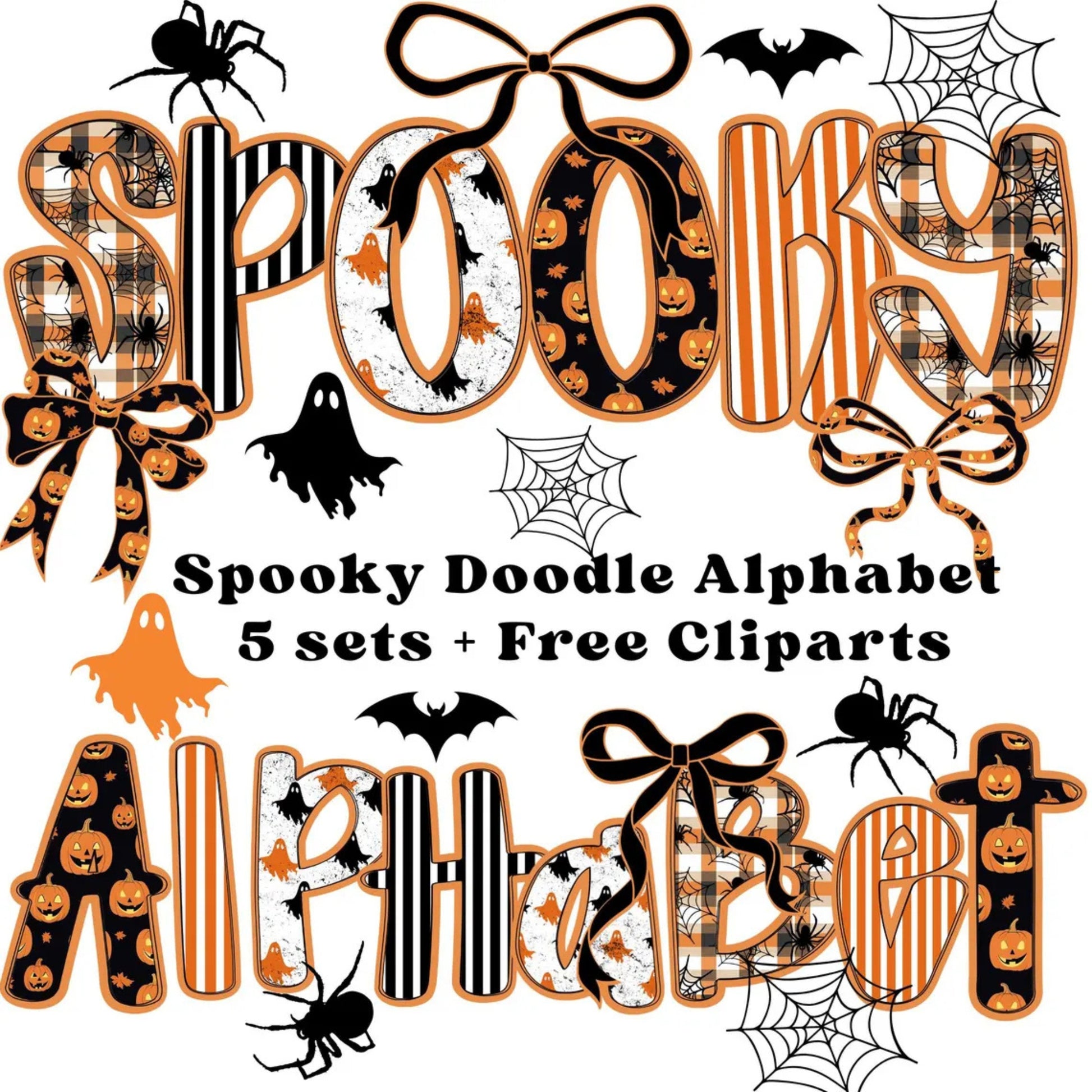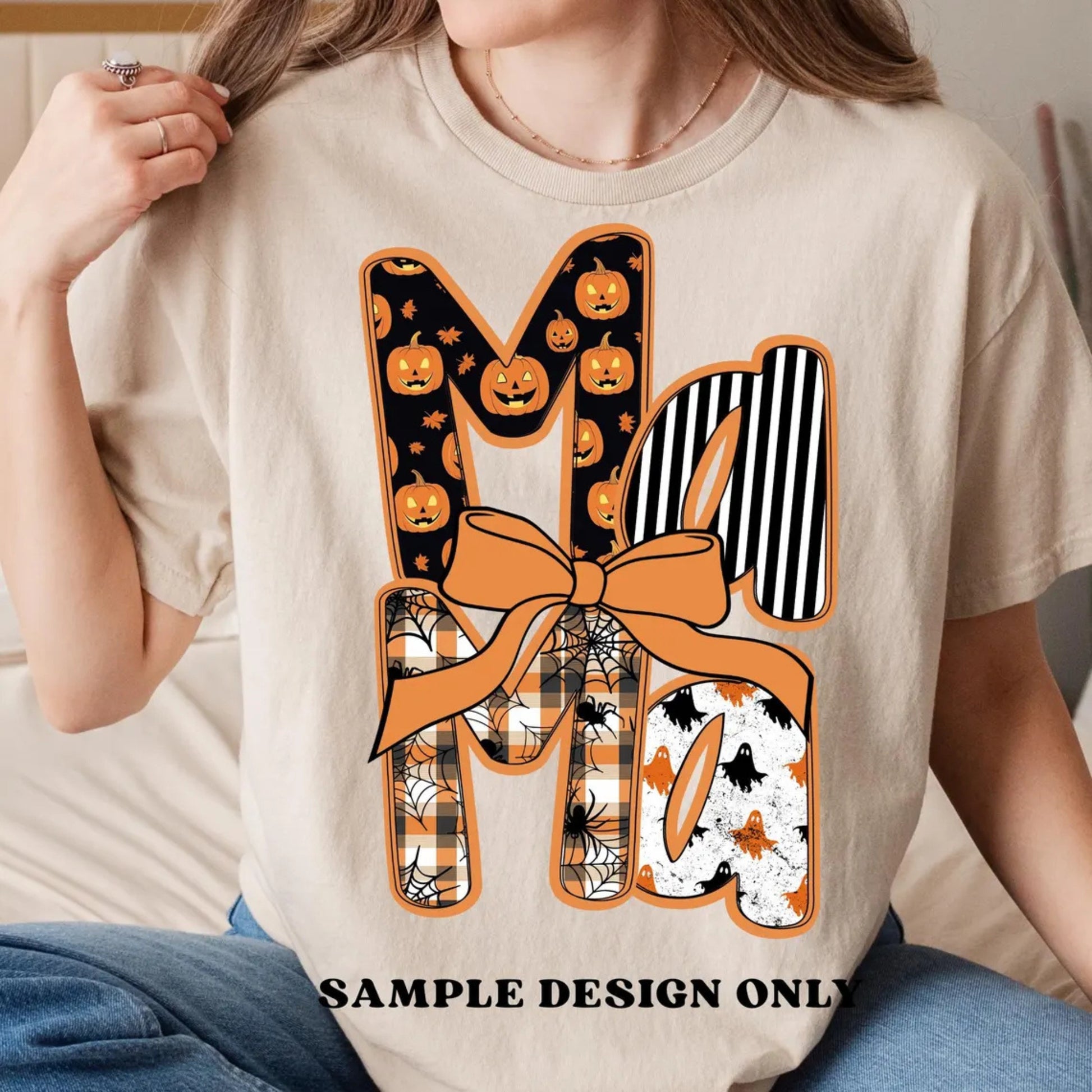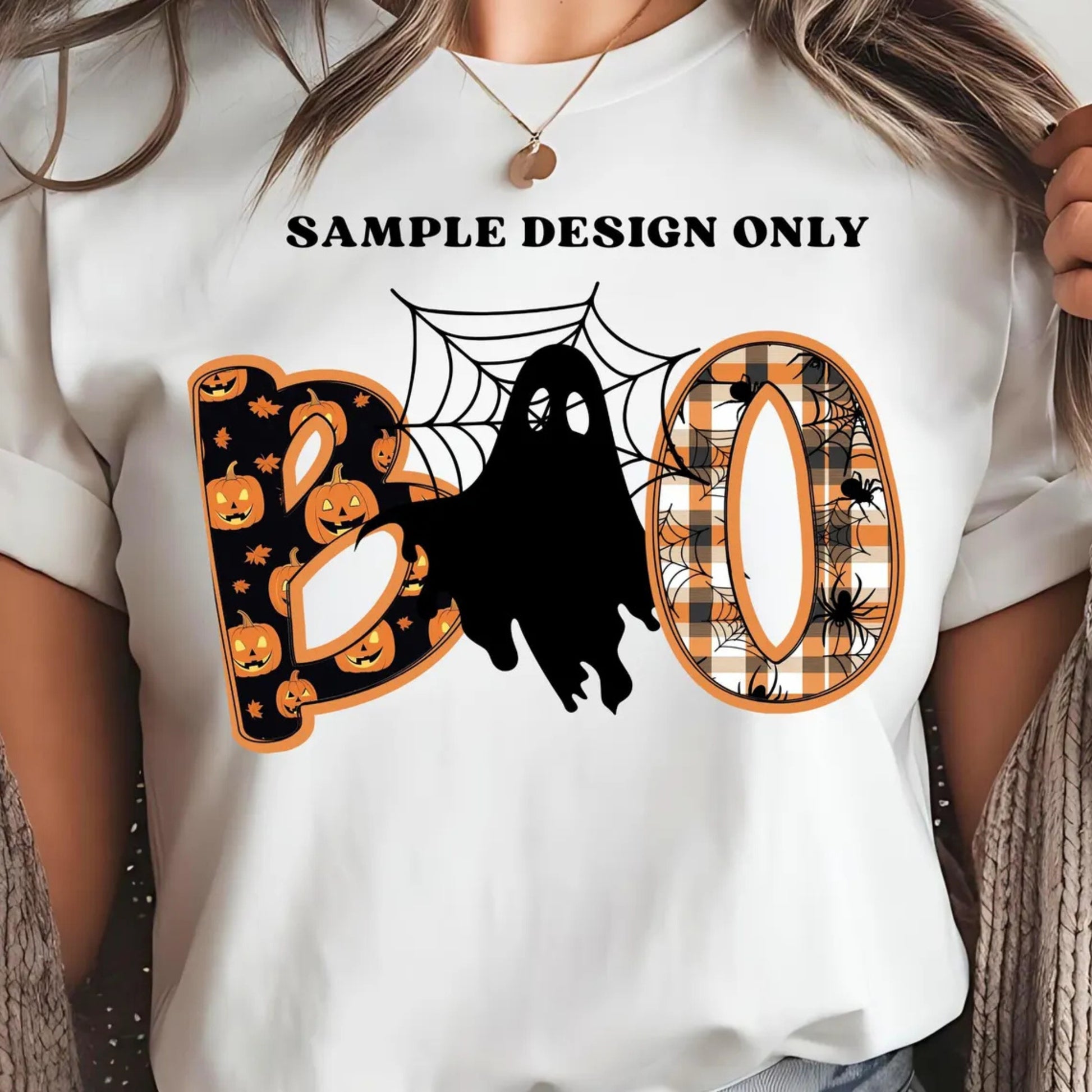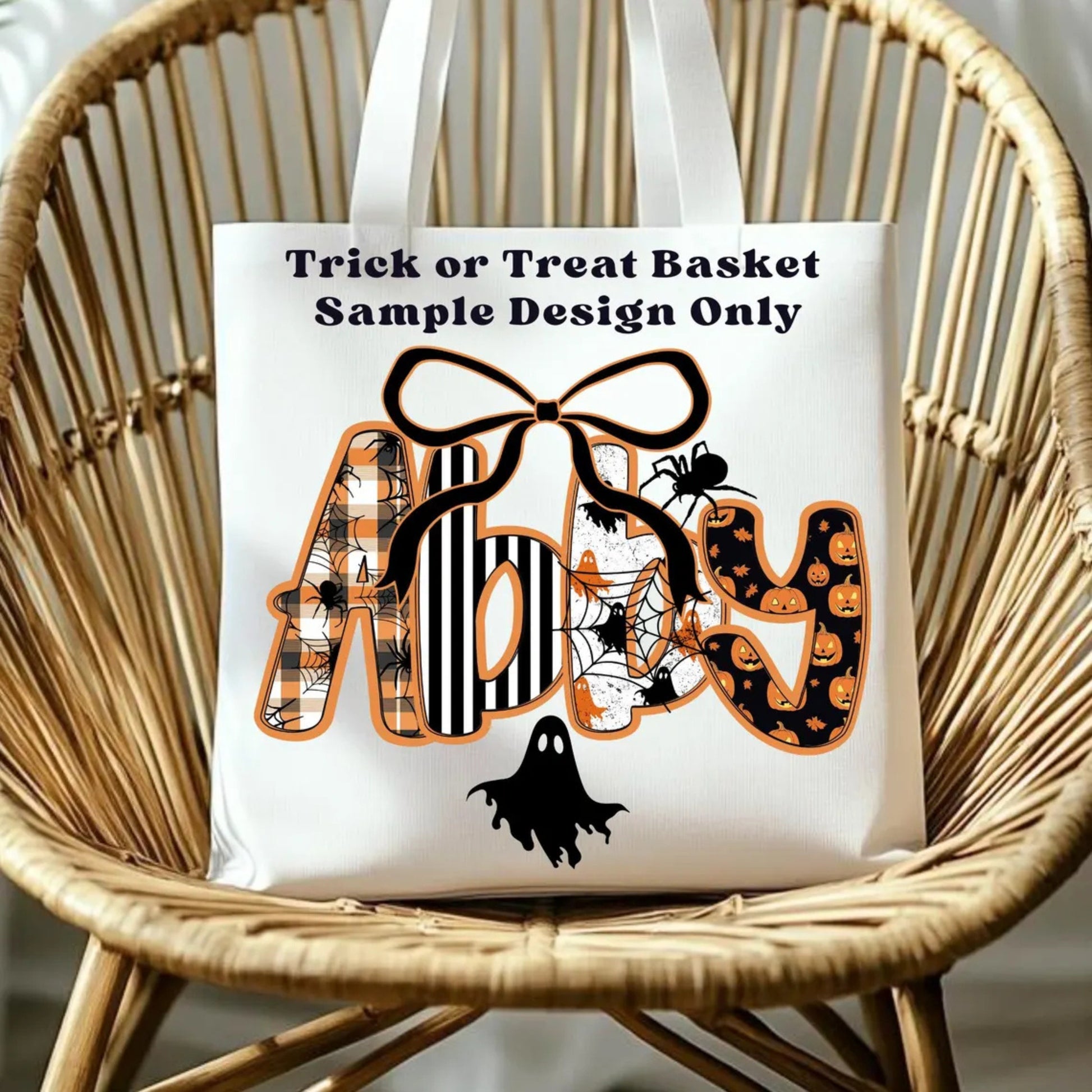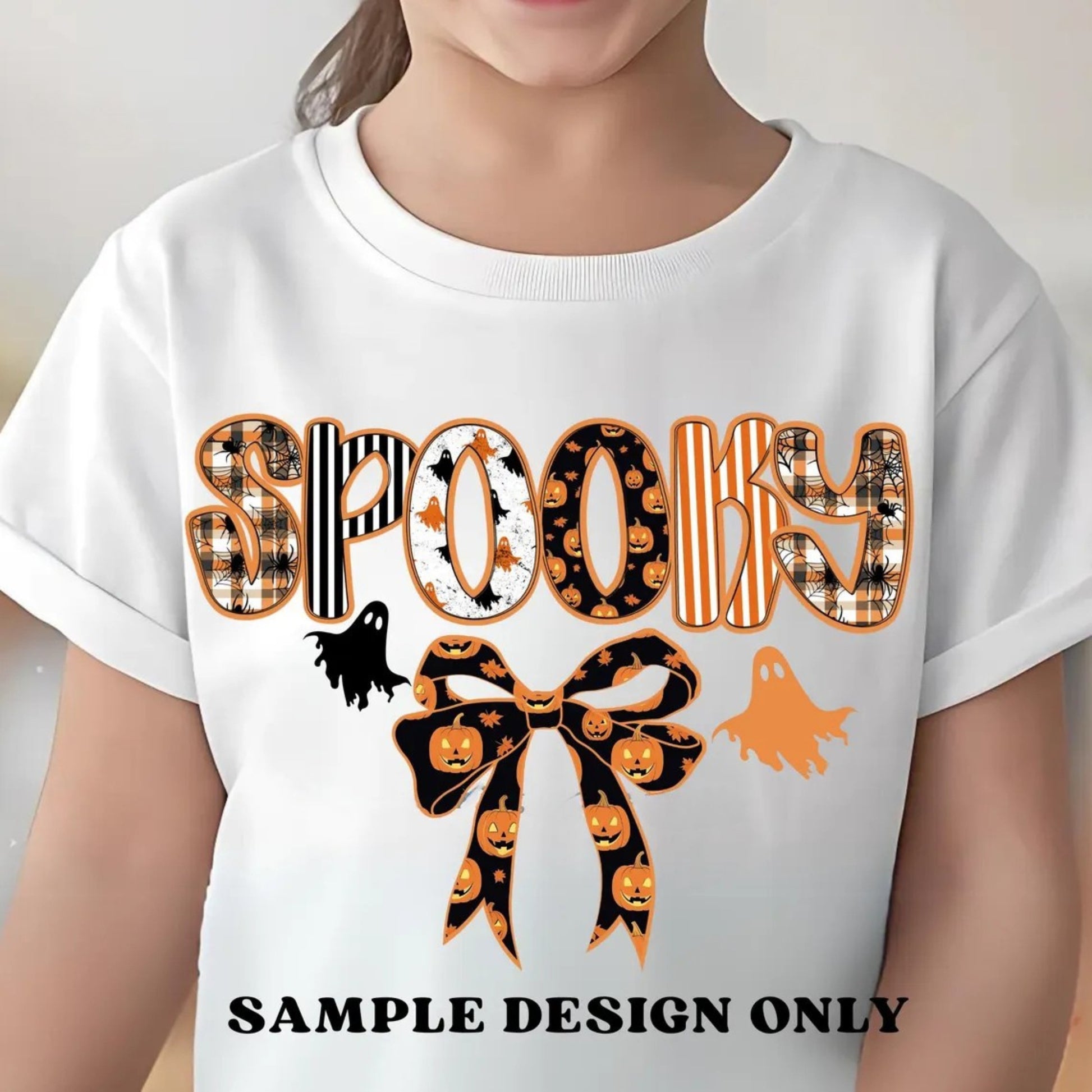
Spooky Alphabet Doodle Font with Cliparts Set & Our Entire Doodle Font Library
Set of Spooky Halloween Doodle Fonts. Bonus: Free Clipart Set & Entire Doodle Font Library!
A playful spooky touch to your Halloween designs with this Spooky Doodle Alphabet PNG Font Bundle! This set includes 5 hand-drawn letter styles featuring bats, ghosts, and pumpkins, perfect for crafting, invitations, shirts, and sublimation projects. Each Halloween letter is designed in a fun doodle alphabet PNG style with a mix of retro, preppy, and coquette Halloween vibes. You'll also get free cliparts like spiderwebs and spooky bows. Ideal for anyone needing a bold Halloween font PNG or unique spooky letters for digital or print projects!
-5 complete sets of A–Z uppercase and lowercase doodle letters
-Bonus clipart bows to match